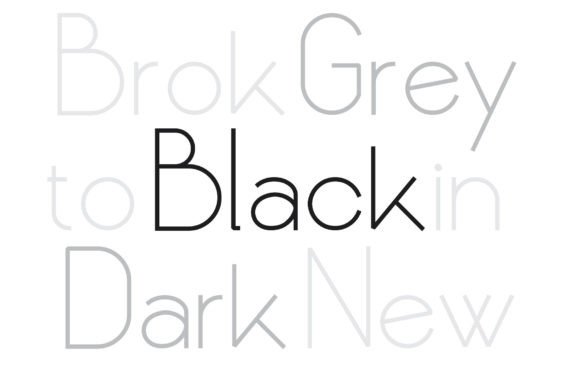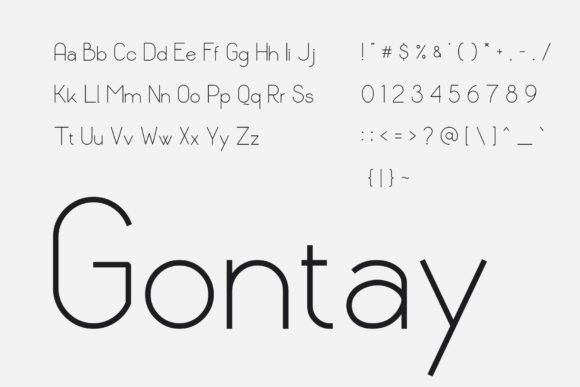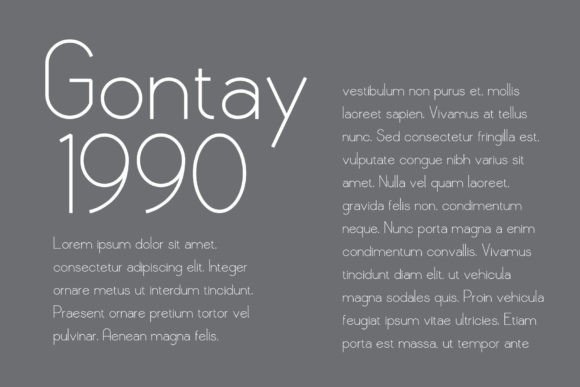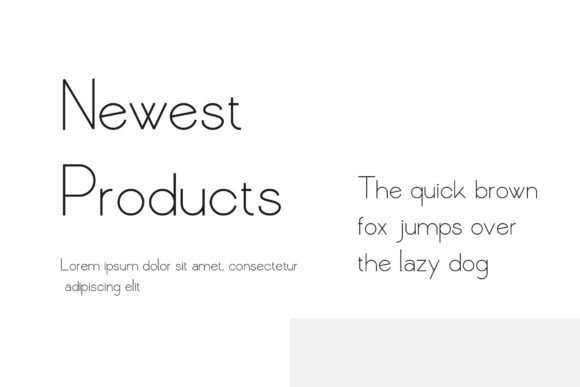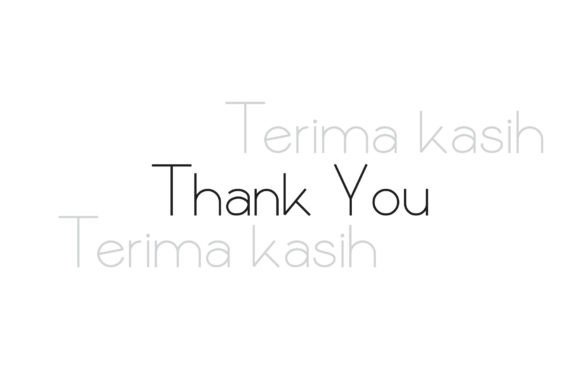
What is Gontay Font?
Gontay falls under the category of Display Fonts, and it’s a sleek, line font designed to exude a corporate and professional aesthetic. This versatile font is well-suited for various purposes, including branding, logos, headlines, websites, and magazines. Its clean lines, precise curves, and balanced proportions make it perfect for designers, crafters, and creative hobbyists looking to elevate their designs.
What I Love About Gontay ✨
- ✅ Clean and Professional Look: Gontay’s sleek design makes it perfect for corporate branding and professional projects.
- ✅ Versatility: This font can be used for a wide range of applications, from logos and headlines to websites and magazines.
- ✅ Easy to Read: Despite its sleek design, Gontay remains highly legible, even at smaller sizes.
- ✅ OpenType Features: Gontay comes with a range of OpenType features, including stylistic alternates and glyphs, which can be used to add an extra layer of creativity to your designs.
- ⚠️ Limited Use in Body Text: While Gontay is perfect for headlines and titles, it may not be the best choice for body text due to its sleek, condensed design.
- ⚠️ May Not Suit All Brands: Gontay’s professional aesthetic may not be suitable for brands looking for a more playful or creative vibe.
The Designer Inspiration Behind Gontay
Gontay was designed with the modern professional in mind. Its creator, a talented typographer, aimed to craft a font that would exude a sense of sophistication and elegance. The design process involved extensive research into the world of corporate branding and professional design, resulting in a font that is both versatile and visually striking.
Q: What is Gontay font used for?
A: Gontay is a versatile display font suitable for various purposes, including branding, logos, headlines, websites, and magazines.
Q: Does Gontay come with OpenType features?
A: Yes, Gontay comes with a range of OpenType features, including stylistic alternates and glyphs, which can be used to add an extra layer of creativity to your designs.